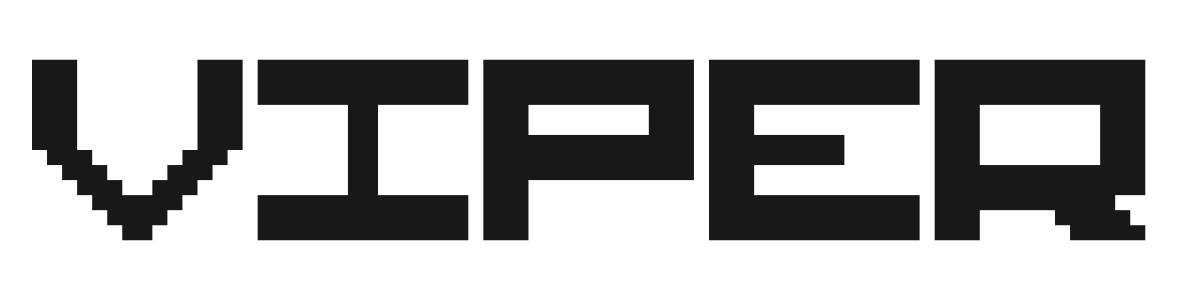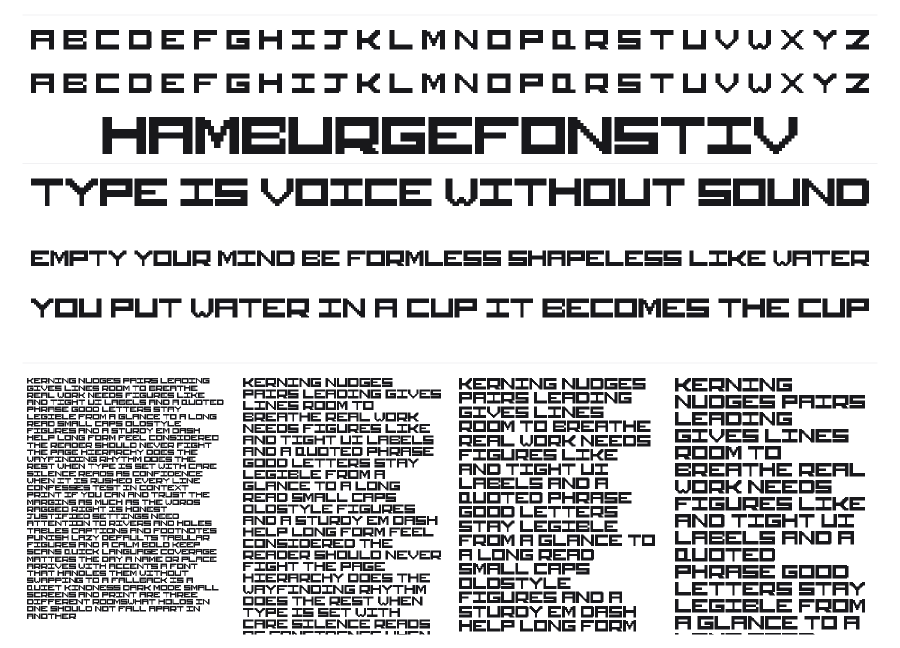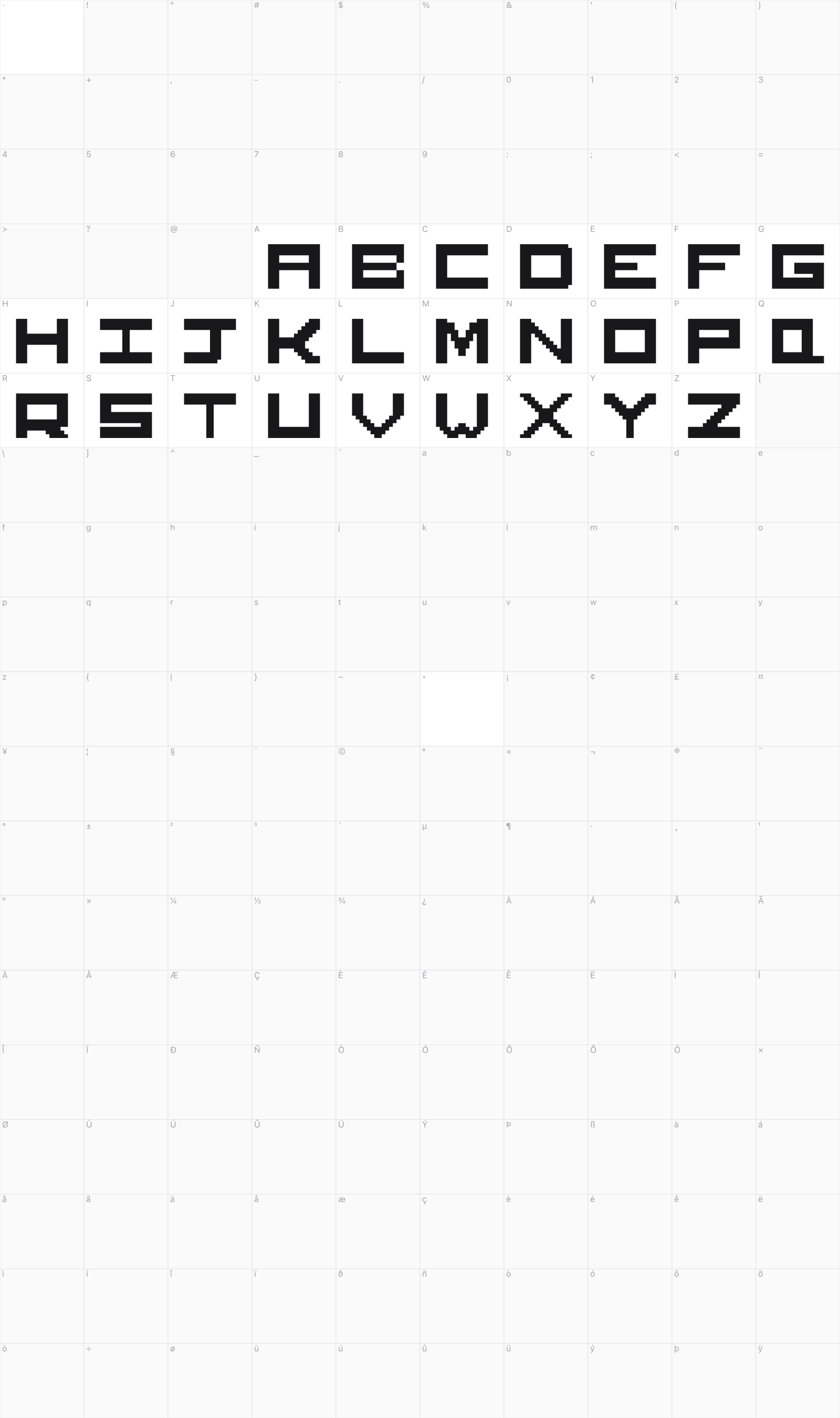
Viper
Viper is a bold pixel-grid sans-serif with chunky square characters built entirely on a low-resolution bitmap structure. The heavy uniform strokes and right-angle construction give it a hard, machine-like presence that reads instantly as sci-fi or military. It works best large, where the pixel grid reads as intentional and the weight commands attention.